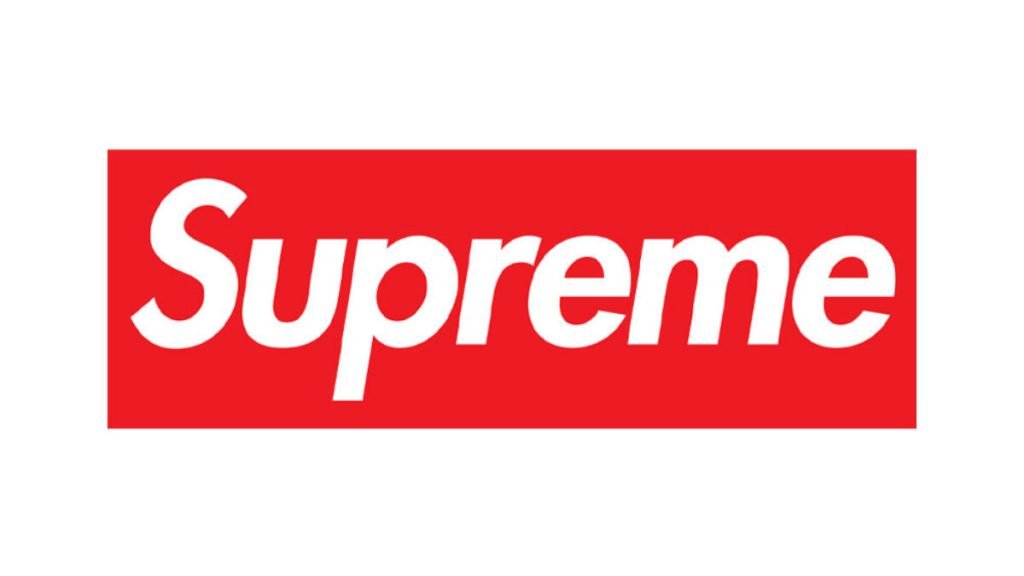
We are excited to introduce to you the iconic display typeface called Supreme Font, created by the talented Roger Excoffon. One of the most recognizable implementations of this typeface is in the renowned brand logo SUPREME located in New York.
If you want to make portraits captions then use the 3d italics of this typeface with tablet gothic font. This way you will reflect on the great ways that show the different ways of writing textual content in a respectful manner.
View of Supreme Font
Before going forward, Just take a look at the appearance of this font that how does it will appear when you apply it to your graphic design.
Due to its clean and clean texture, you may easily use this amazing typeface for brand designs, cloth printing, official cards, precise emblems, and so on.
What Type of Font Is Supreme?
Supreme is one of the best display fonts that is designed by Roger Excoffon.
What’s the Closest Font to Supreme?
The College Condensed is very close to the Supreme font.